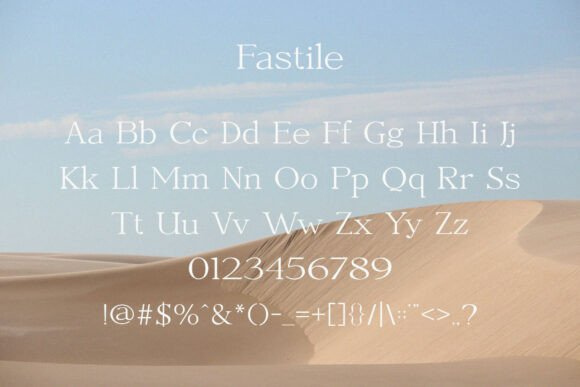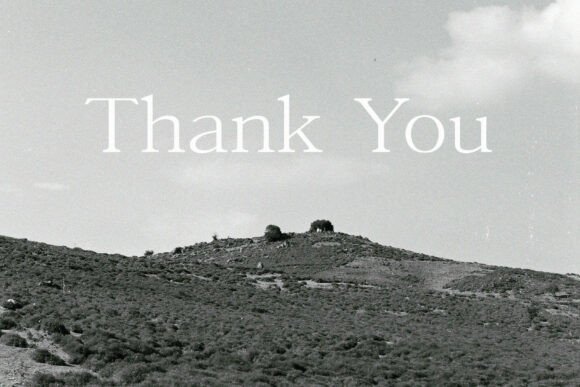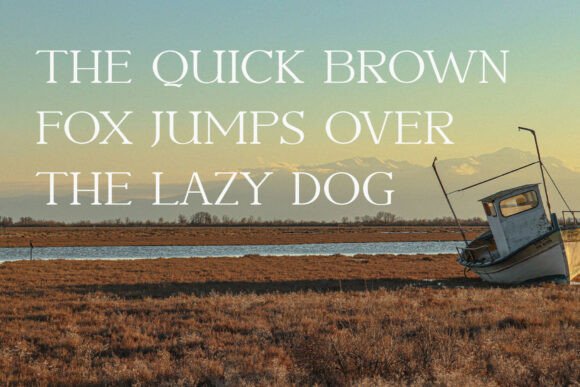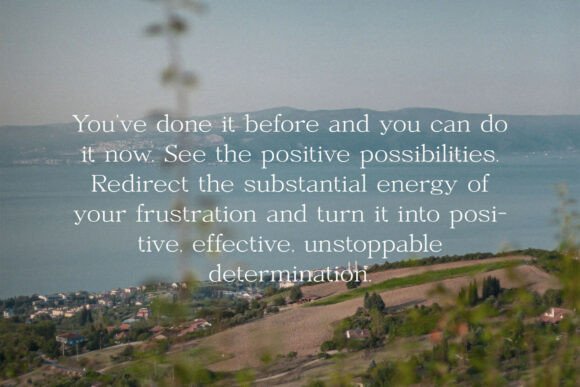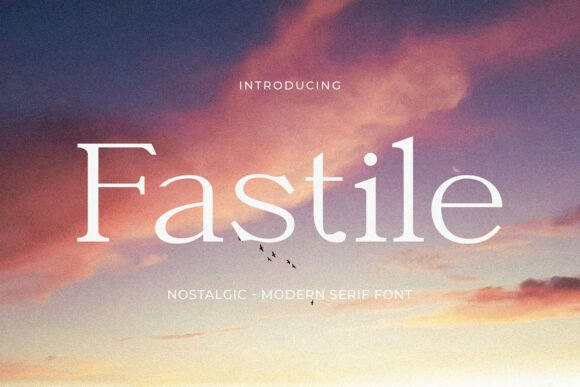
Introducing Fastile Font: The Timeless Serif Choice for Stunning Designs
Are you a designer or crafter looking for the perfect font to elevate your creative projects? Look no further than Fastile Font, a lovely and timeless serif font that is sure to make your designs come alive. With its unique and beautiful touch, Fastile is the ideal choice for creating eye-catching logos, branding, and quotes that leave a lasting impression.
The Beauty of Fastile Font
Fastile Font boasts a classic serif design that exudes elegance and sophistication. Every letter has been carefully crafted to showcase a distinctive and beautiful touch, setting it apart from other fonts. The font’s timeless quality ensures that it will remain relevant and stylish for years to come, making it a valuable addition to any designer’s toolkit.
Fastile Font is specifically designed to help you create stunning logos, branding, and quotes that capture the attention of your audience. Its unique character and classic charm make it an excellent choice for:
- Logos: Create a lasting impression with a custom logo that showcases your brand’s personality and style.
- Branding: Establish a strong brand identity with Fastile Font, perfect for use on business cards, letterheads, and packaging.
- Quotes: Add a touch of elegance to your inspirational quotes and sayings, making them perfect for social media, posters, and flyers.
Why Choose Fastile Font?
With so many fonts available, why choose Fastile Font for your design projects? Here are just a few reasons:
- Unique Character: Fastile Font has a distinctive and beautiful touch that sets it apart from other fonts.
- Timeless Quality: Its classic serif design ensures that it will remain stylish and relevant for years to come.
- Versatility: Fastile Font is perfect for a wide range of design projects, from logos and branding to quotes and more.
- Ease of Use: Fastile Font is easy to read and works well in a variety of sizes, making it perfect for both print and digital applications.
Tips for Using Fastile Font
To get the most out of Fastile Font, here are a few tips to keep in mind:
- Pair it with Other Fonts: Experiment with pairing Fastile Font with other fonts to create a unique and visually appealing design.
- Use it in Headings and Titles: Fastile Font is perfect for use in headings and titles, adding a touch of elegance and sophistication to your designs.
- Experiment with Colors: Try out different colors and textures to add depth and interest to your designs featuring Fastile Font.
Fastile Font is a stunning serif font that is sure to elevate your design projects to the next level. With its unique character, timeless quality, and versatility, it’s the perfect choice for designers and crafters looking to create eye-catching logos, branding, and quotes. So why wait? Try Fastile Font today and discover the difference it can make in your designs!